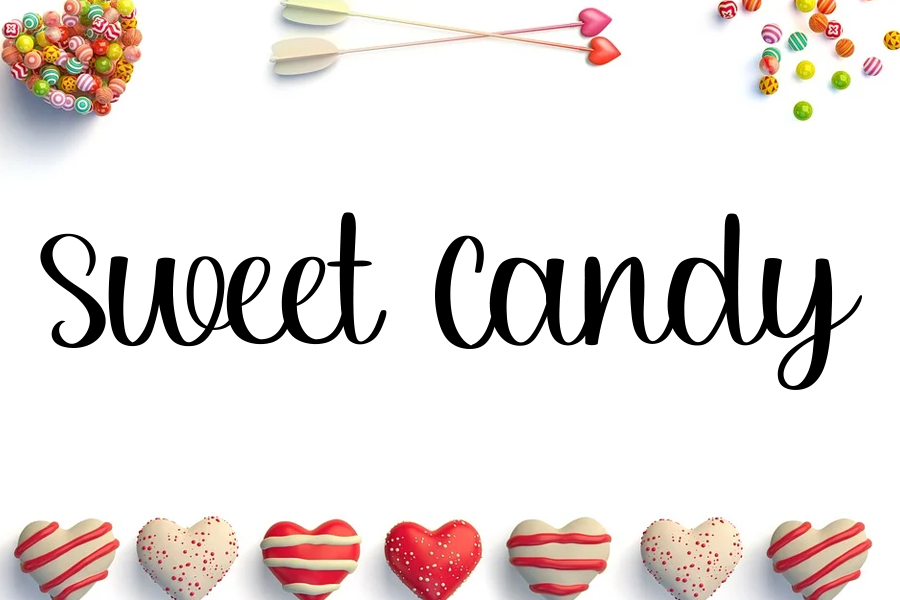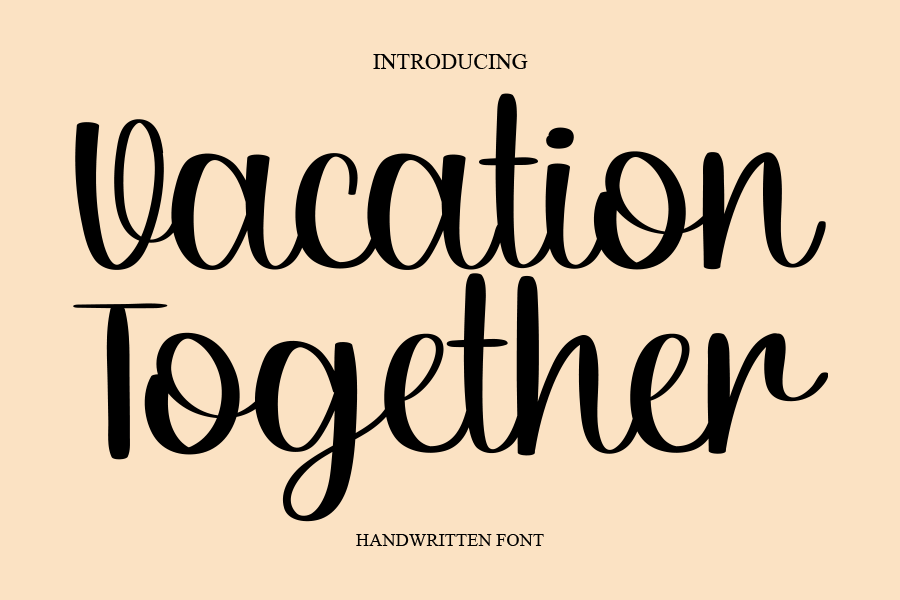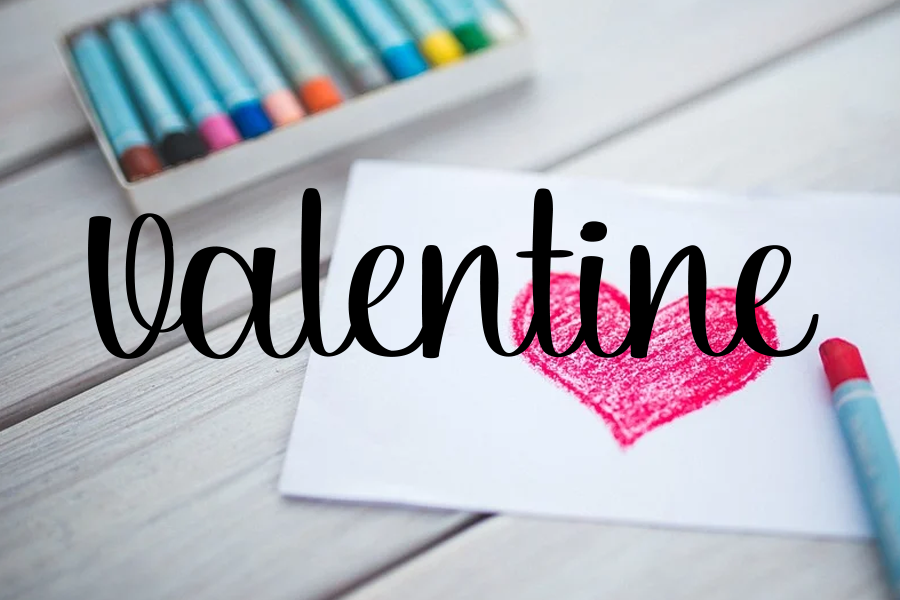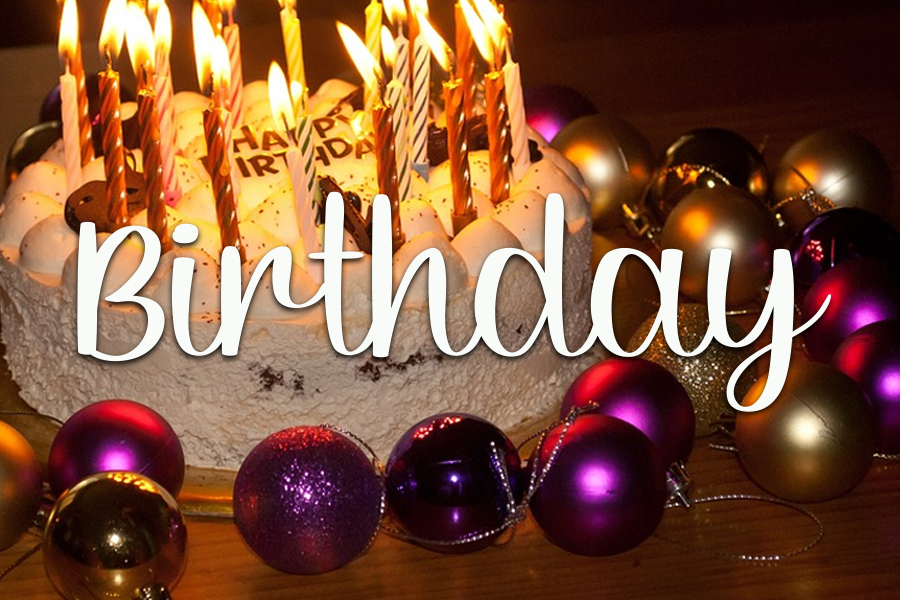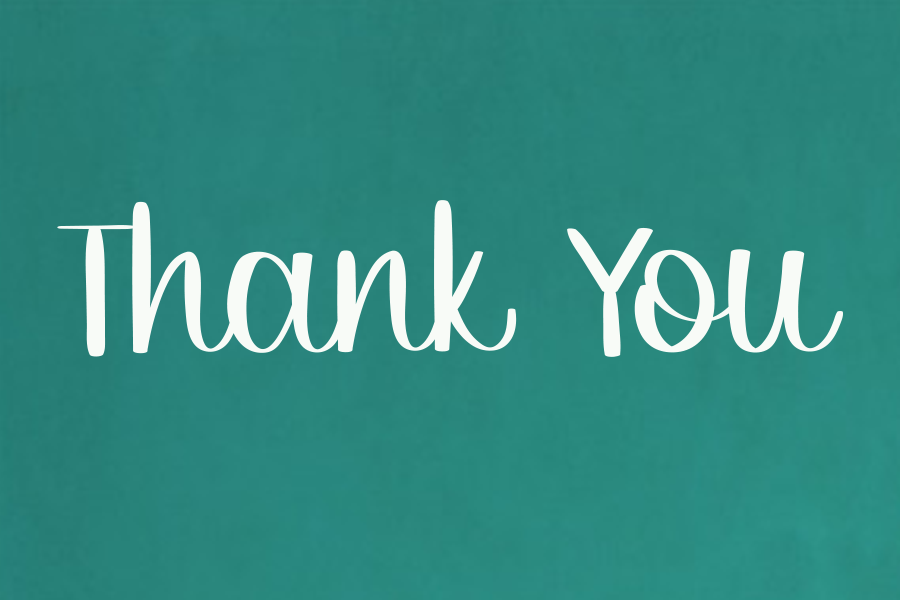
Vacation Together Script Font
This is a cute and simple handwritten font, that can be used for all chalkboard quotes or teaching material! Its authentic look will add a personal and realistic feel to your designs.
It’s a simple handwriting perfect for weddings, wall hangings, decorations, products and more